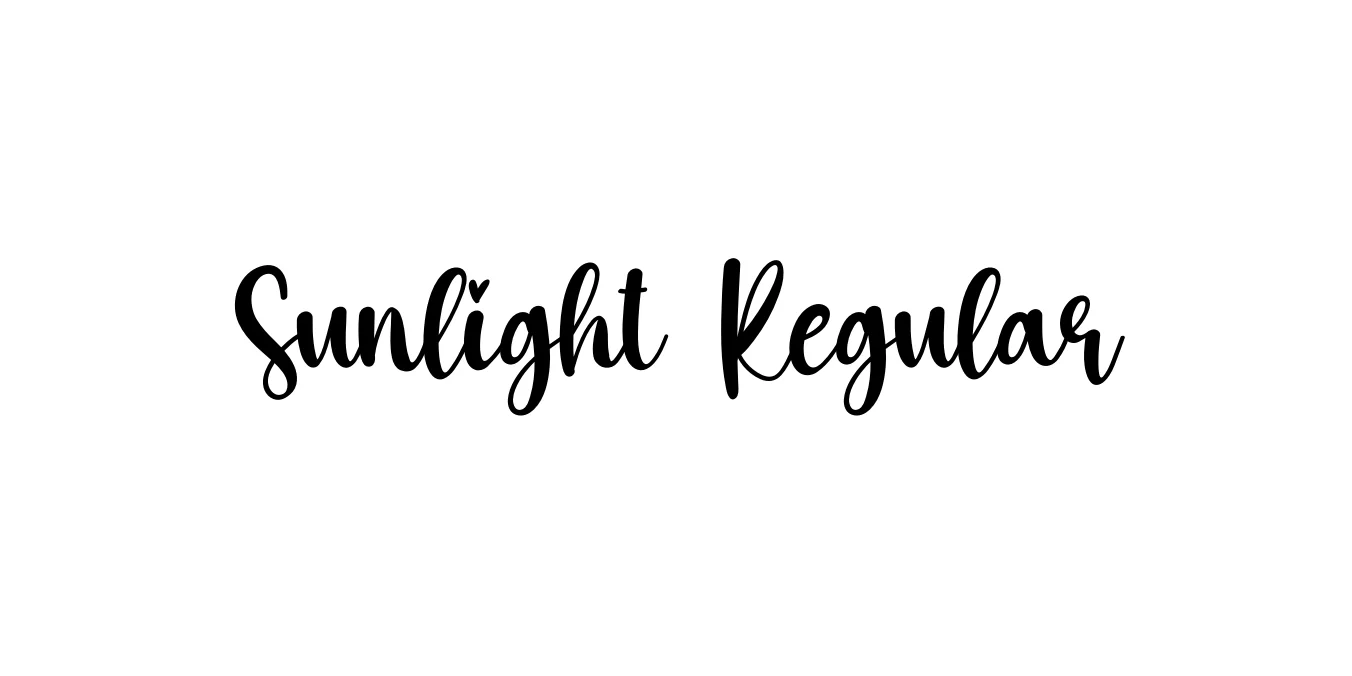
Sunlight Regular
| Category | Script / Decorative |
Sunlight Regular is a beautifully fluid script typeface designed to capture the warmth and elegance of handcrafted calligraphy. Developed with a focus on natural motion and rhythmic strokes, this font features delicate flourishes and sophisticated ligatures that create a seamless visual flow. Its organic aesthetic makes it particularly effective for projects that require a sense of artisanal quality and personal touch.
Since its release, Sunlight Regular has become a popular choice for designers seeking to add a layer of luxury and grace to their work. The typeface balances traditional calligraphic principles with a modern sensibility, ensuring that it remains legible even in complex layouts. It is frequently utilized in high-end editorial design, premium branding, and celebratory stationery where a standard serif or sans-serif would feel too clinical.
Sunlight Regular Best Uses
Creating sophisticated and memorable logos for boutique brands and beauty products.
Designing high-end invitations, RSVP cards, and place settings with a romantic feel.
Crafting inspirational quotes and stylish text overlays for visual platforms.
Adding a premium, handcrafted aesthetic to luxury goods and artisanal items.